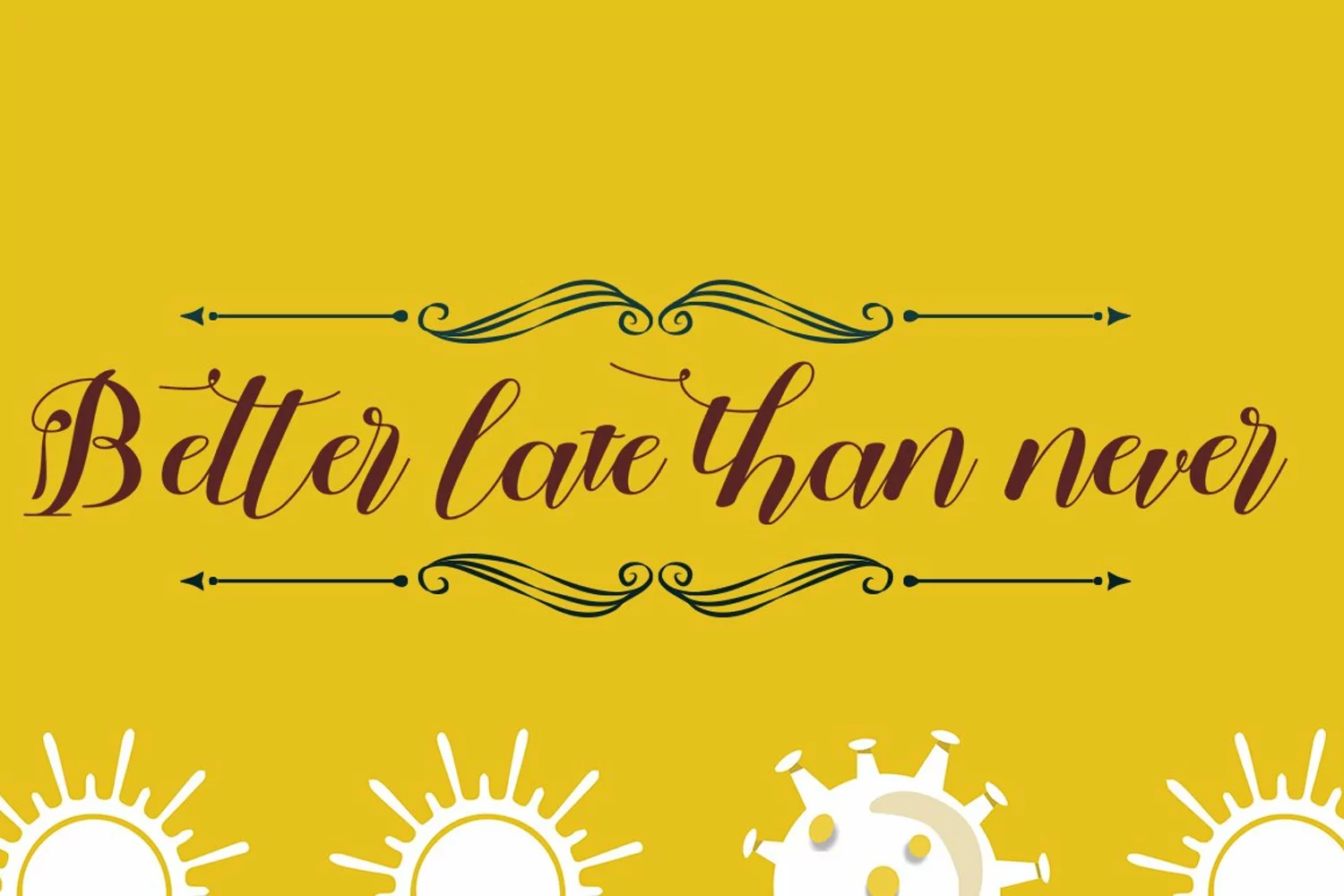
Fussena is a charming and exquisite handwritten font. It will add an incredibly joyful touch to your designs.
Fall in love with its playful style and use it to create beautiful stationary art, eye-catching social media posts, and much more!